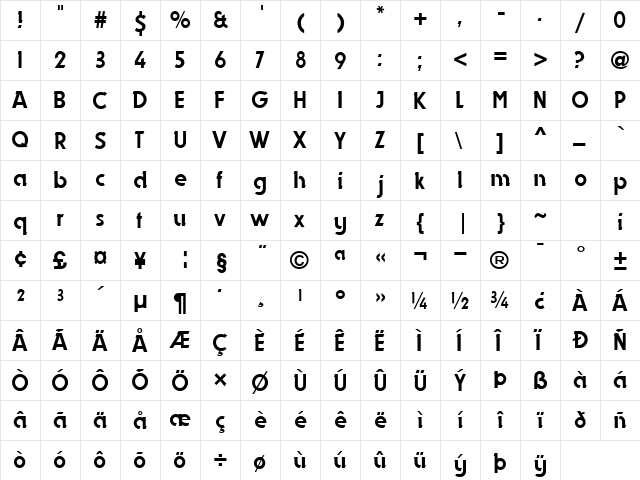
Dynamic Normal
Design Context for Dynamic Typeface
Dynamic takes a measured approach to typography — its balanced proportions and neutral character make it a reliable workhorse for both digital and print work.
Pro Tip: Pair Dynamic with a font of contrasting weight or personality to build a more expressive typographic hierarchy.